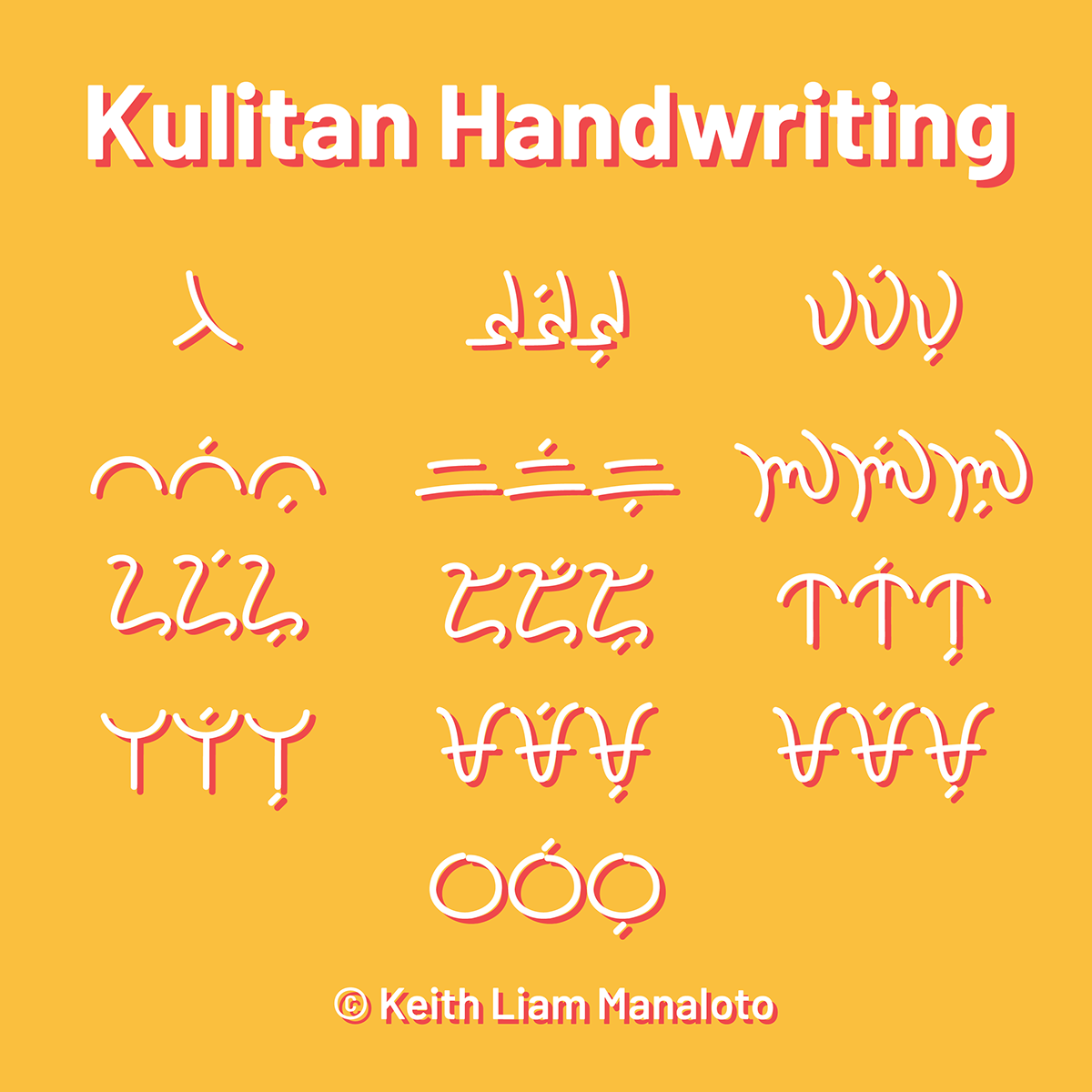
Kulitan Handwriting is the first OpenType font for the indigenous Kapampangan script "Kulitan" that is optimized for mobile screens.
Includes support for dynamic glyph substitution. Typing an additional vowel adds a garlit on the top or bottom of the glyph.